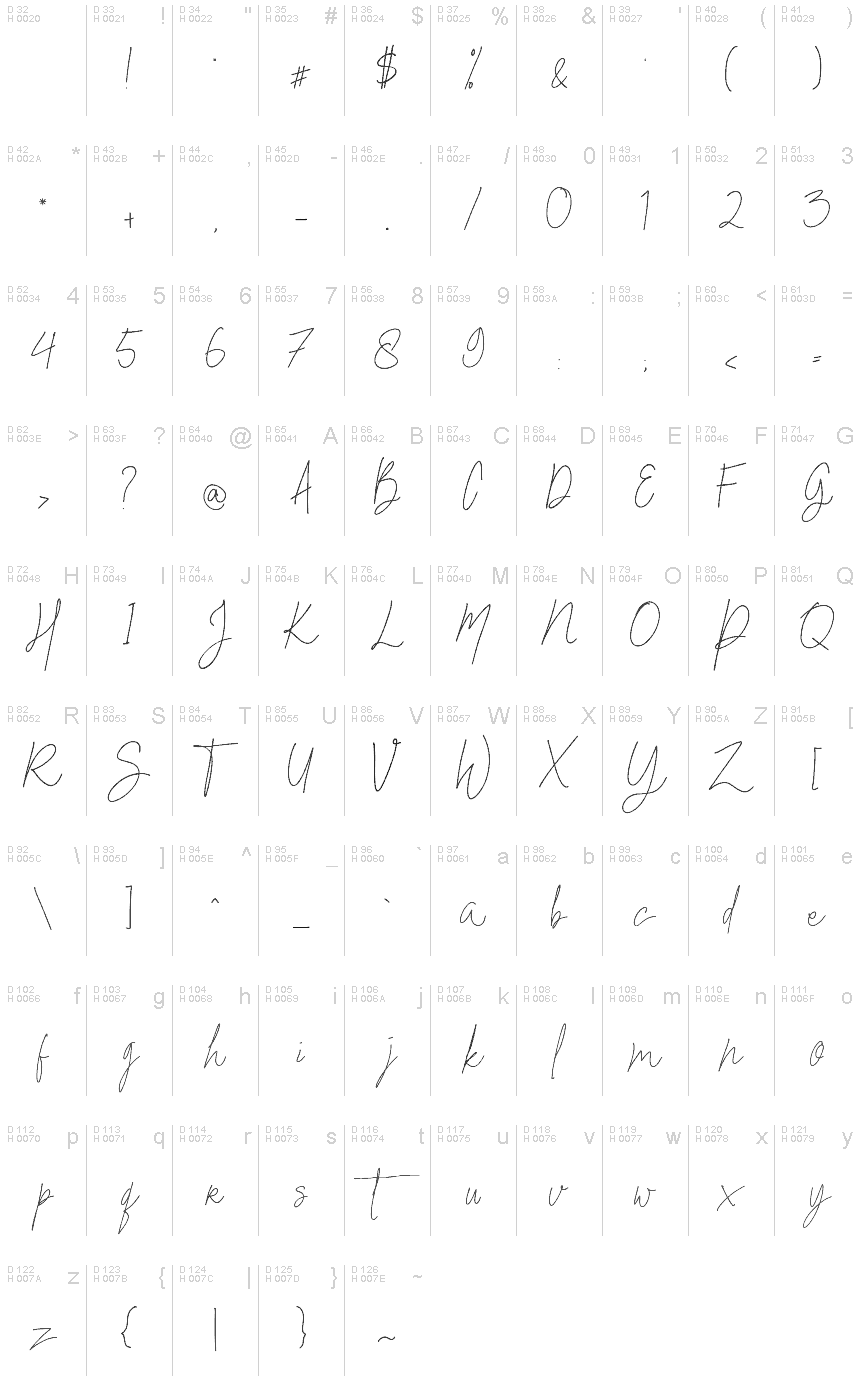
Britson Regular
"Britson" includes full set of
gorgeous uppercase and lowercase letters, numerals, and swashes
font was created to look as close to a natural handwritten script,
It is perfect for blogging, social media, branding, wedding invites and cards.